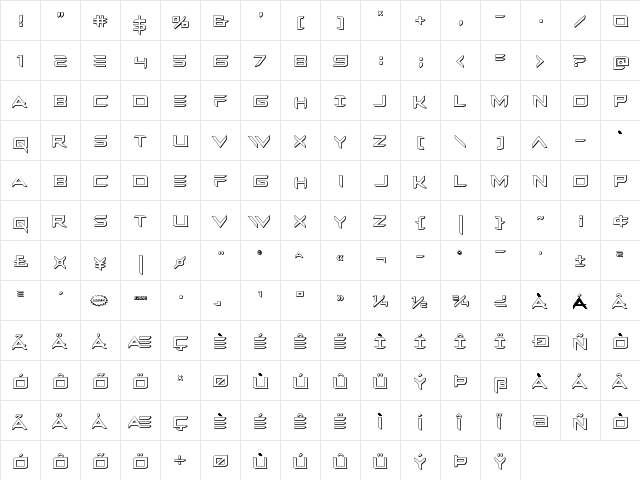
Ferret Face 3D Regular
Design Context for Ferret Face 3D Typeface
Ferret Face 3D is a composed and adaptable typeface that performs quietly and consistently across a wide range of design contexts.